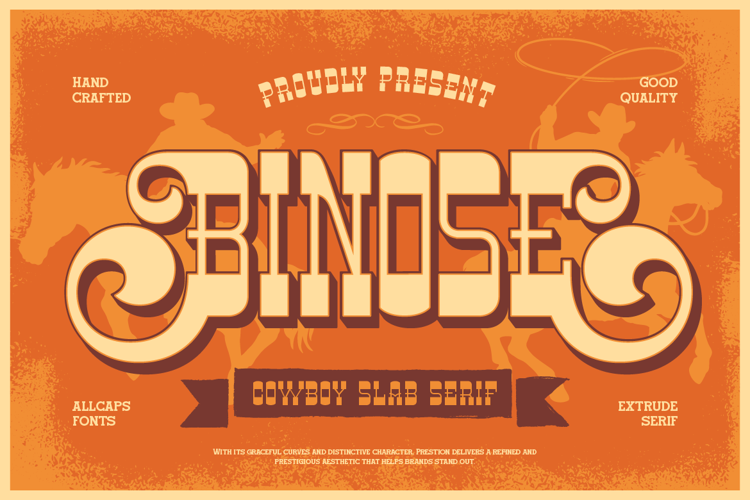
Binose Font
Binose is a bold cowboy slab serif font packed with character, swirling curves, and a rugged western charm. Inspired by vintage rodeo posters and old wild west signage, Binose brings a hand-crafted, authentic frontier feel to any design project. With its decorative curls and sturdy slab serif structure, this font delivers a rustic yet refined aesthetic that instantly evokes saloons, ranches, and desert horizons.
Perfect for:
- Western & cowboy-themed logos
- Whiskey, BBQ, and saloon branding
- Rodeo posters and event flyers
- Ranch, ranch wear, and outdoor apparel
- Country music merchandise
- Leather goods and craft branding
- Vintage Americana packaging design